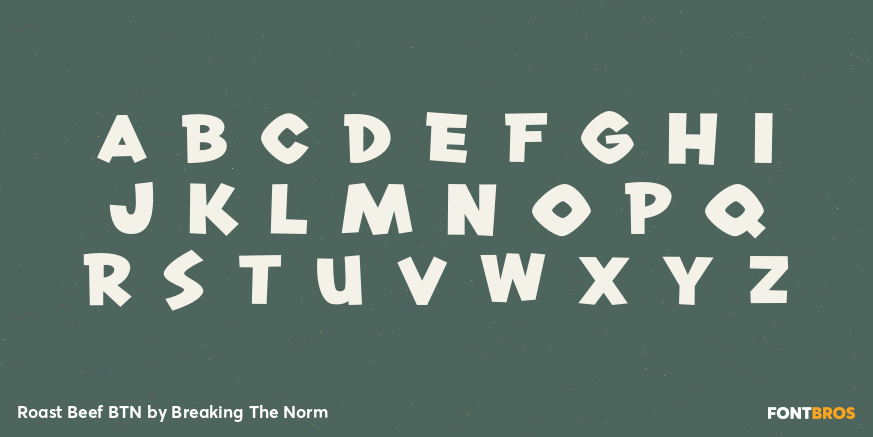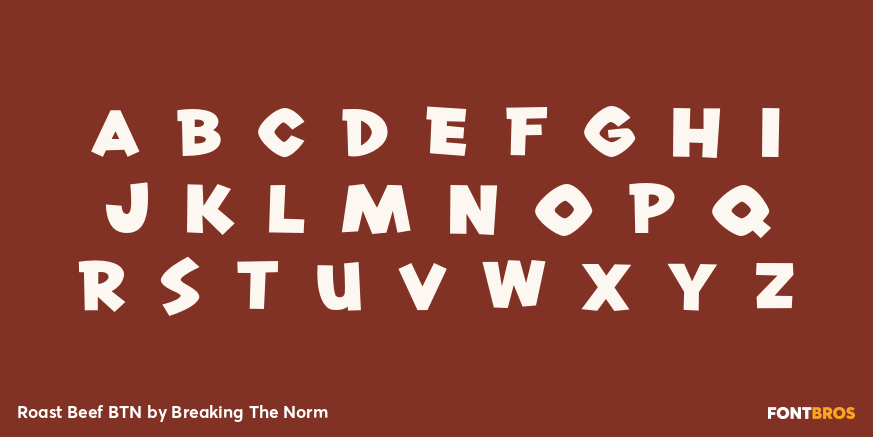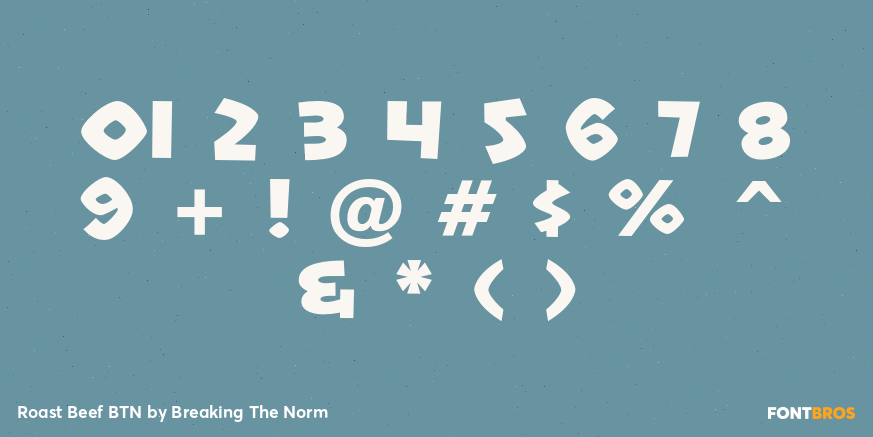
Roast Beef BTN
Font Family by Breaking The Norm
Roast Beef BTN is a bold, rough-and-tumble display family with a hearty vintage personality. Its sturdy forms and saucy attitude give it a strong, flavorful presence that works well for posters, signage, packaging, food branding, menus, and playful headline design. The core style delivers a solid, confident look, while the Inline version adds retro flair and the Ragged companion introduces a rougher, more weathered edge. Roast Beef BTN is a natural fit for projects that want to feel bold, rustic, energetic, and full of character.